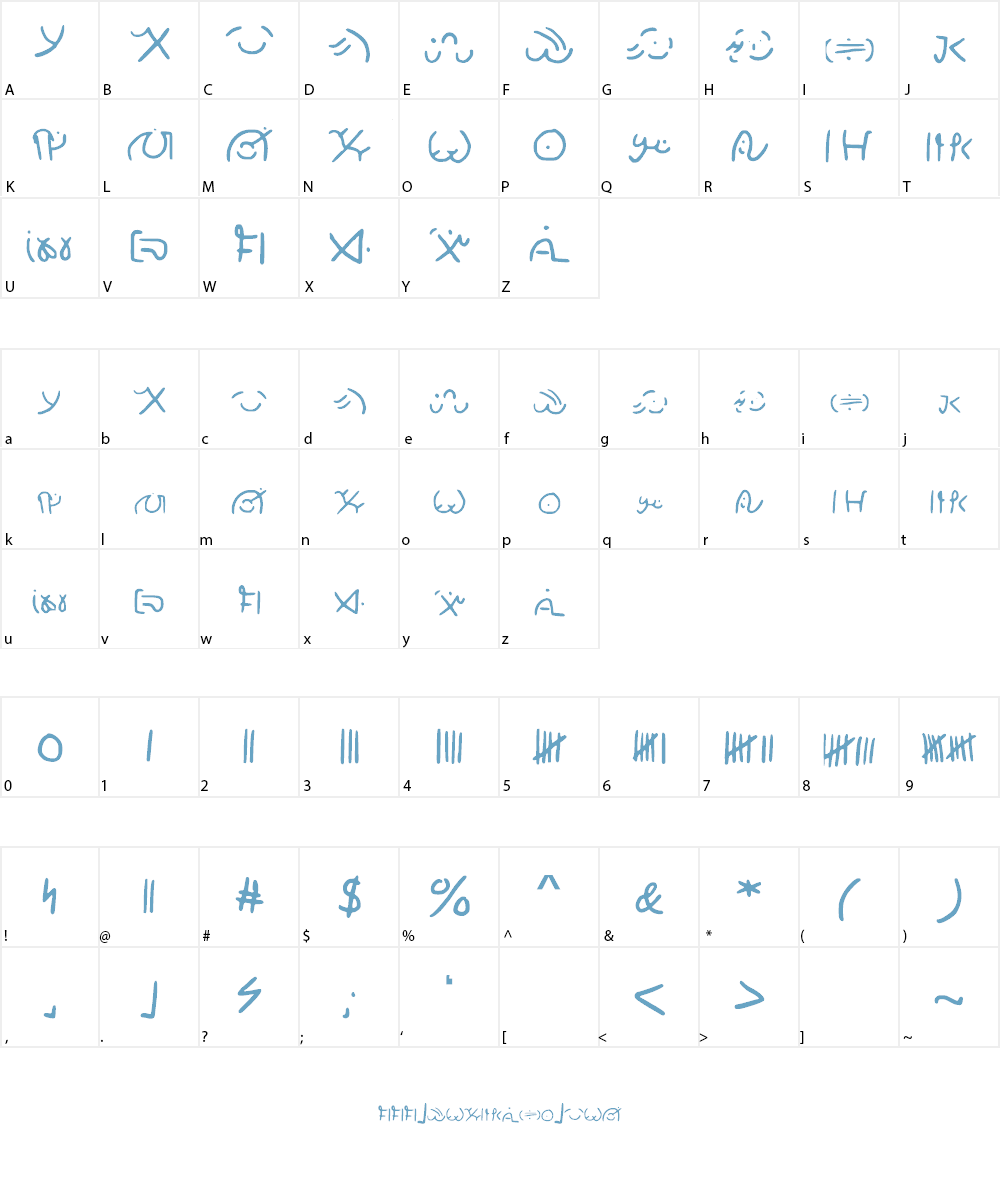
Thats my "Secret Writing".
I invented it some years ago, but i still think, that it's really cool.
The Numbers are a bit wrong. Its like: 1=1 2=2 [...] 8=8 9=10
So you have to type for a nine: 81